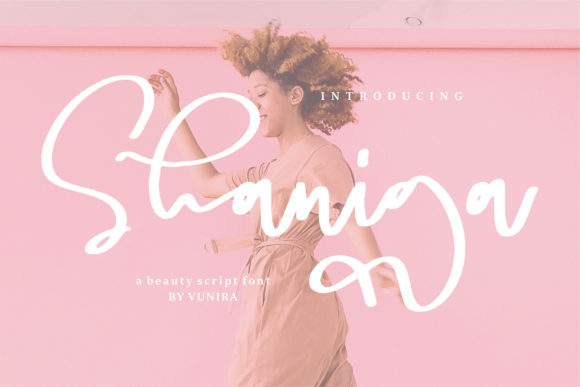
Immerse yourself in the world of Shaniga Font, a captivating script font that will transform your creative projects into mesmerizing masterpieces. Shaniga Font is a brush-painted script with an authentic handwritten look and feel, adding a touch of realism and intimacy to your designs.
Unleash your artistic flair with Shaniga Font's versatile style, a font that flawlessly adapts to a myriad of design concepts. Create captivating logos that exude elegance and personality, or craft stunning invitations that capture the essence of your special occasion. Let your imagination soar as you design eye-catching social media posts that will captivate your audience and leave a lasting impression.
Step into the realm of Shaniga Font, a font crafted with precision and passion. Experience the joy of creating designs that resonate with your audience, evoking emotions and leaving an indelible mark. Shaniga Font is your gateway to a world of endless possibilities, where creativity knows no bounds.